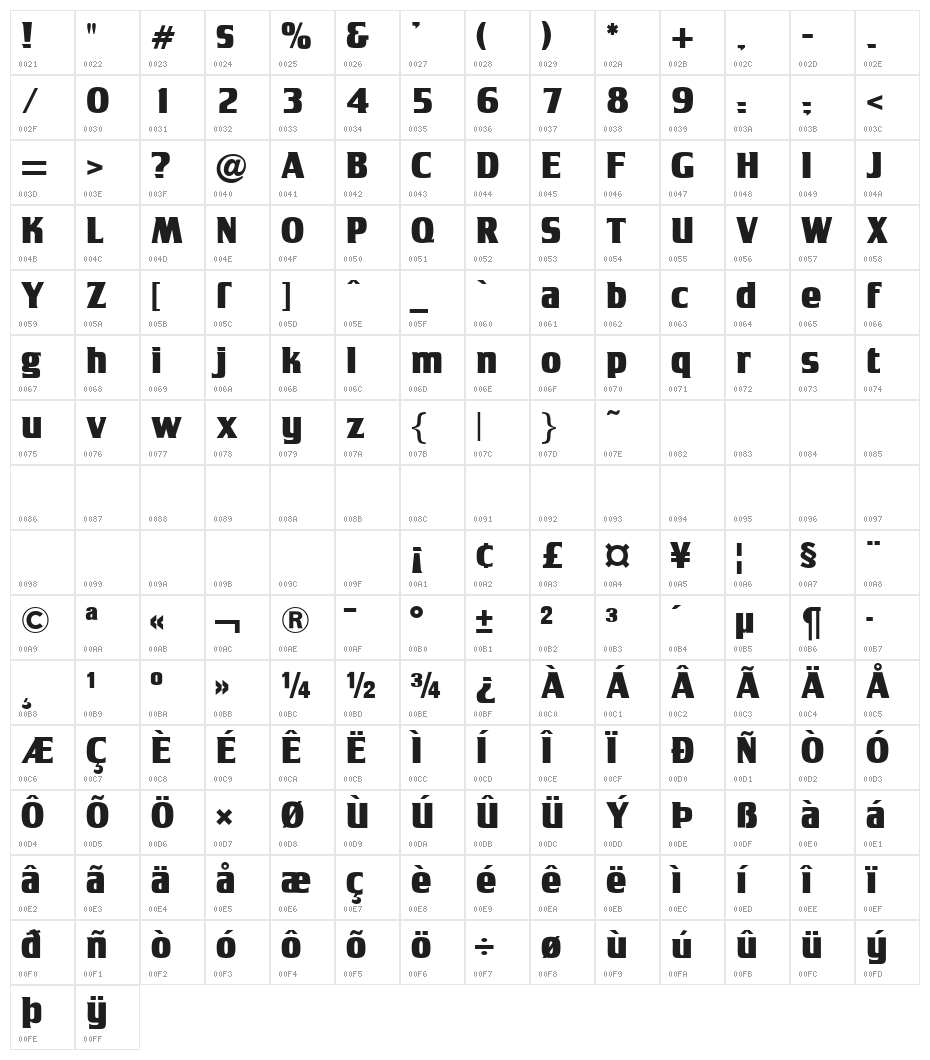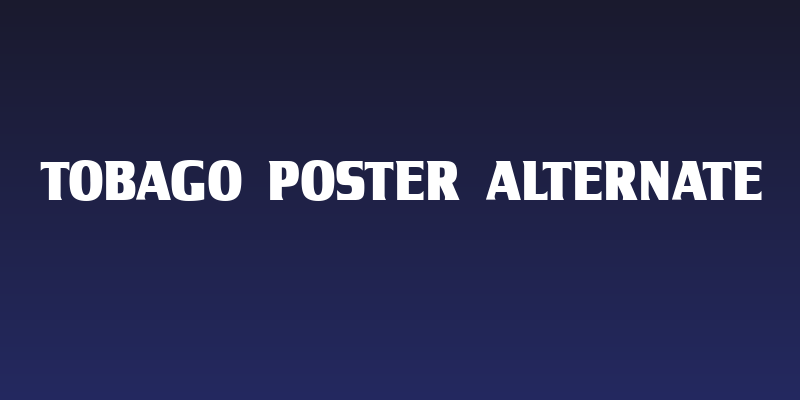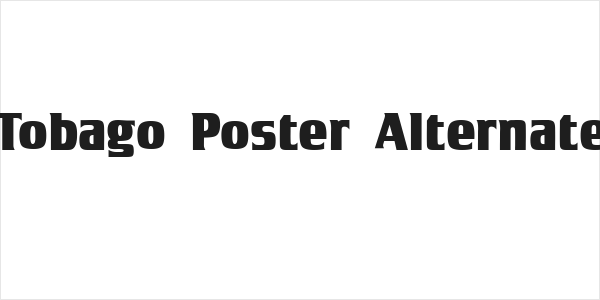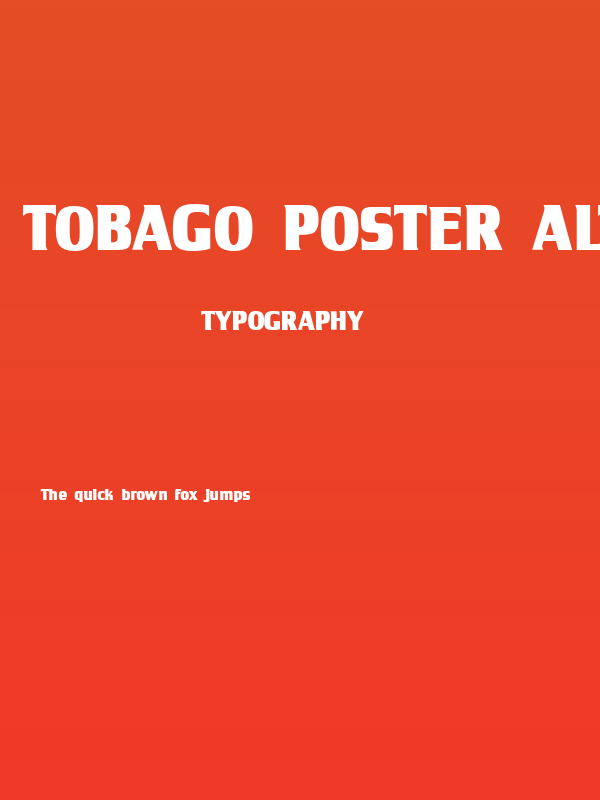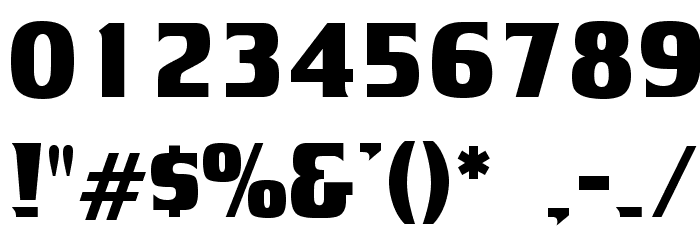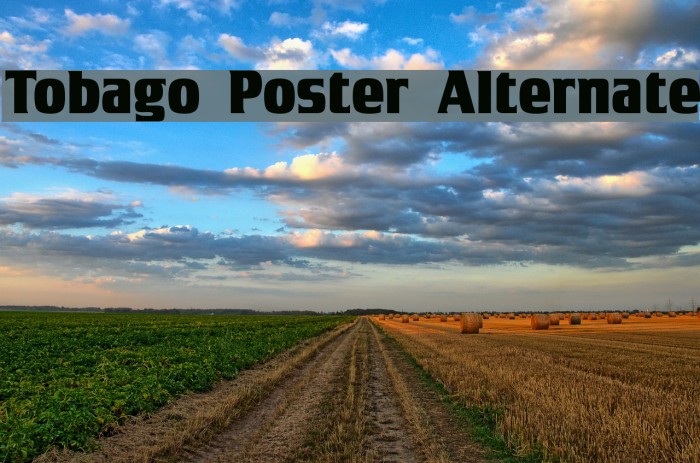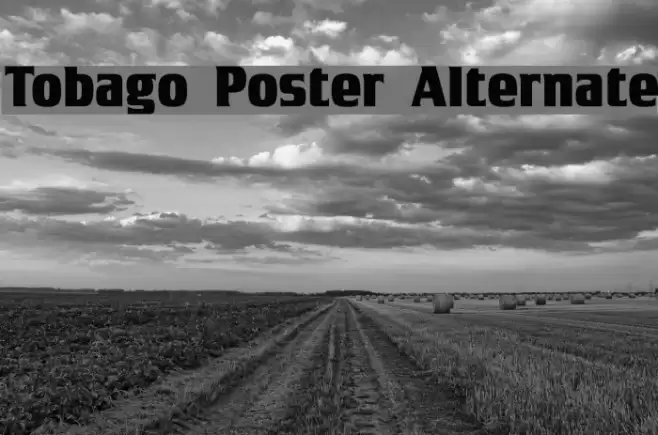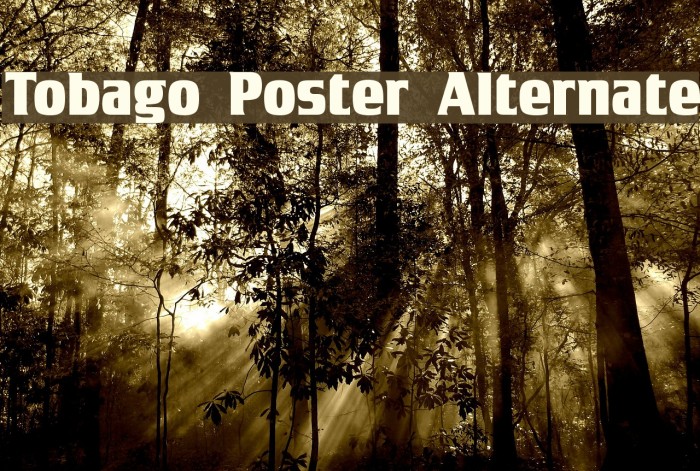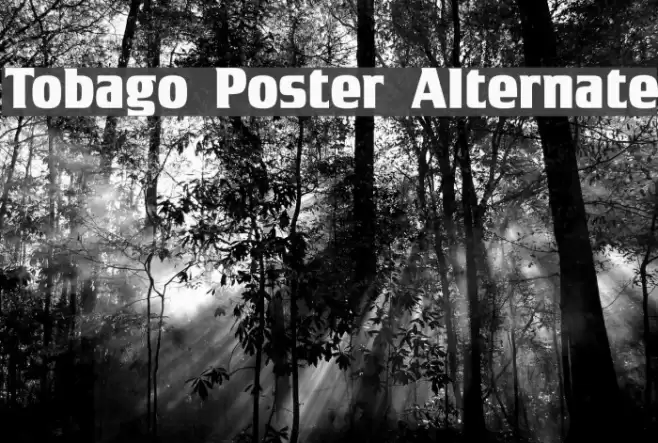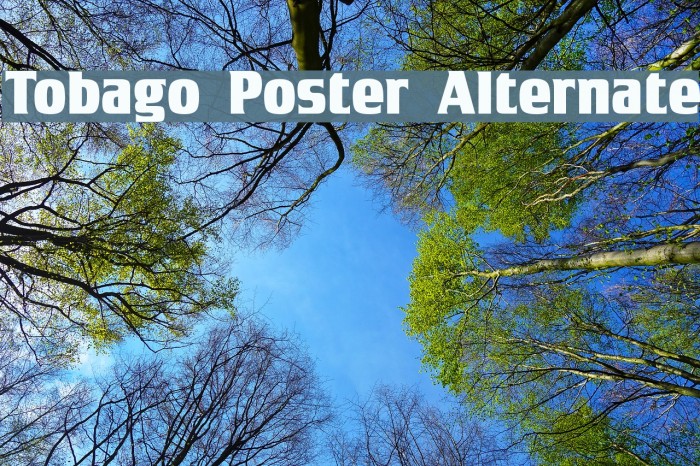
Tobago Poster Alternate Font
Tobago Poster Alternate Description
This font features a bold and impactful design, characterized by thick, uniform strokes that convey strength and stability. The uppercase letters are robust and commanding, while the lowercase letters maintain a consistent weight, offering a harmonious balance. The numerals are clear and legible, matching the boldness of the alphabetic characters. Special characters are designed with the same boldness, ensuring consistency across all glyphs. The font's overall appearance is modern and assertive, making it suitable for attention-grabbing applications.
| Proposed Projects | Ideal for posters, headlines, branding, and advertising where a strong visual impact is desired. |